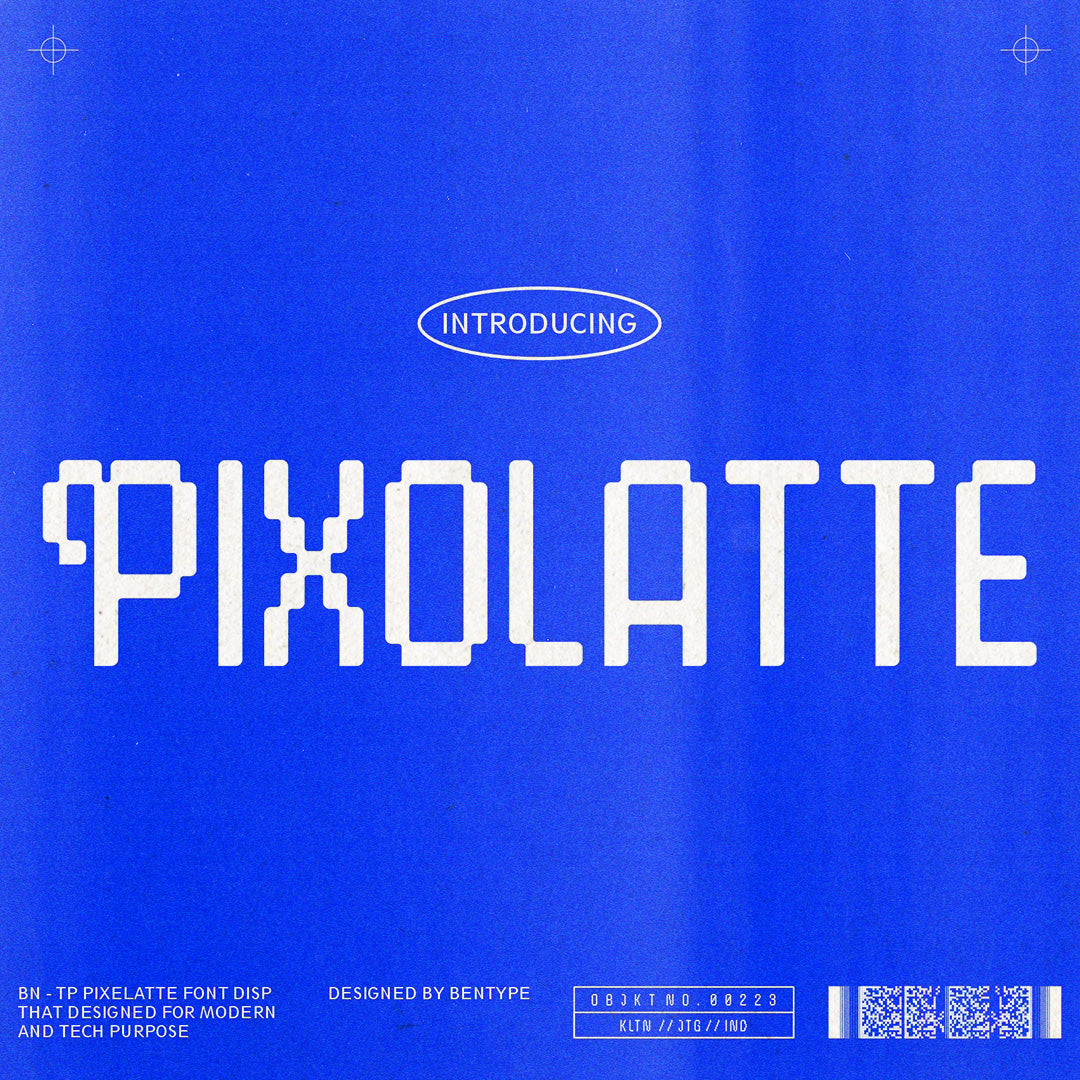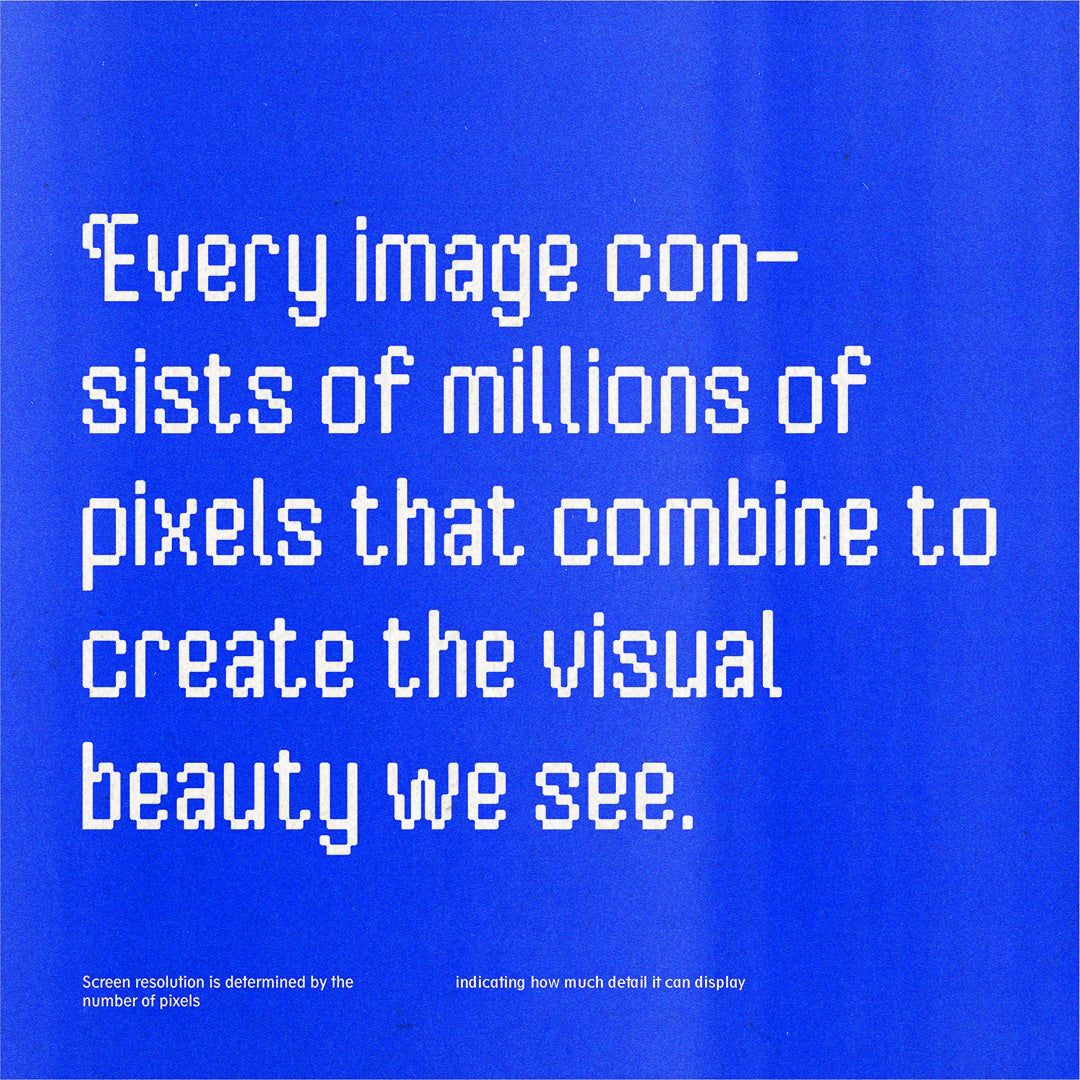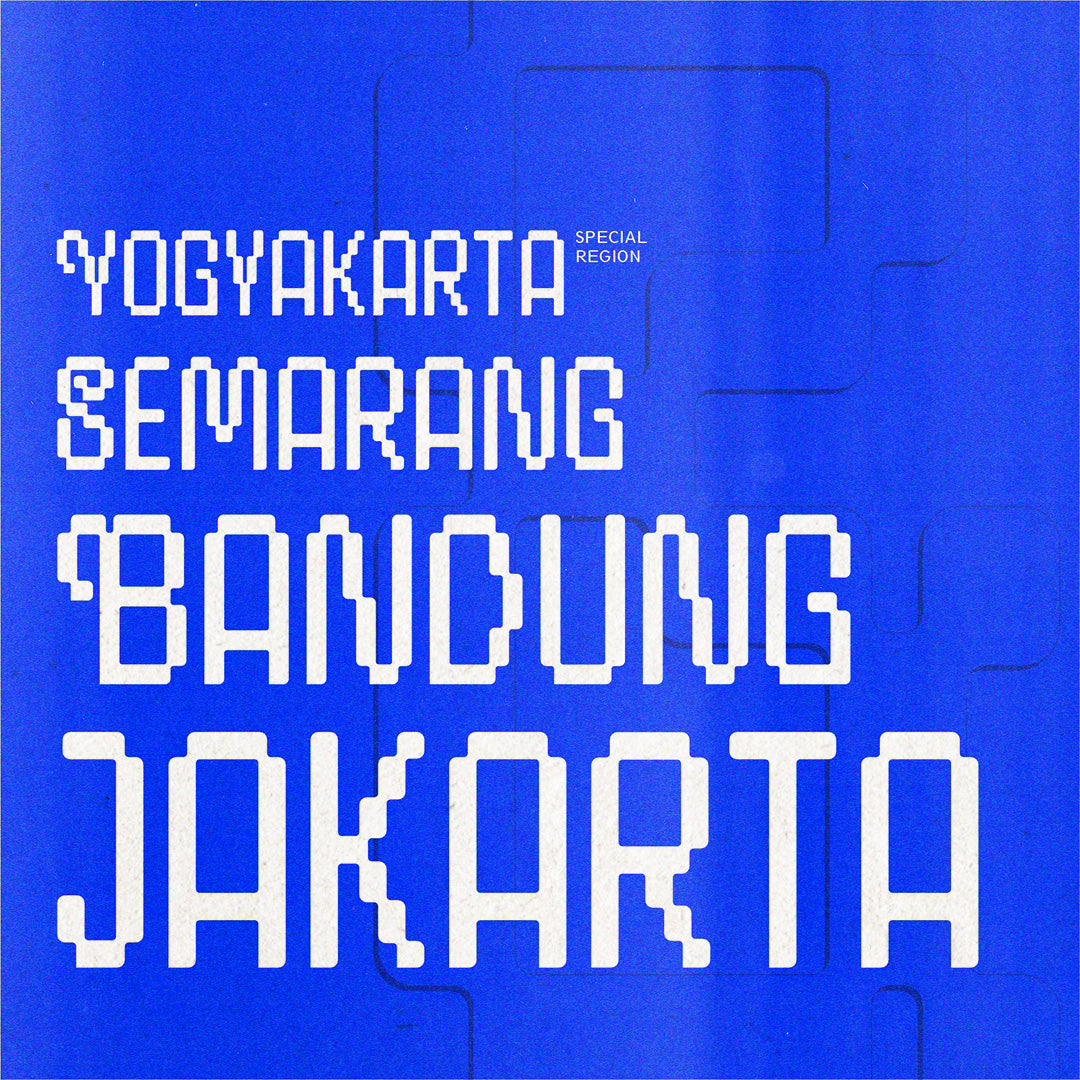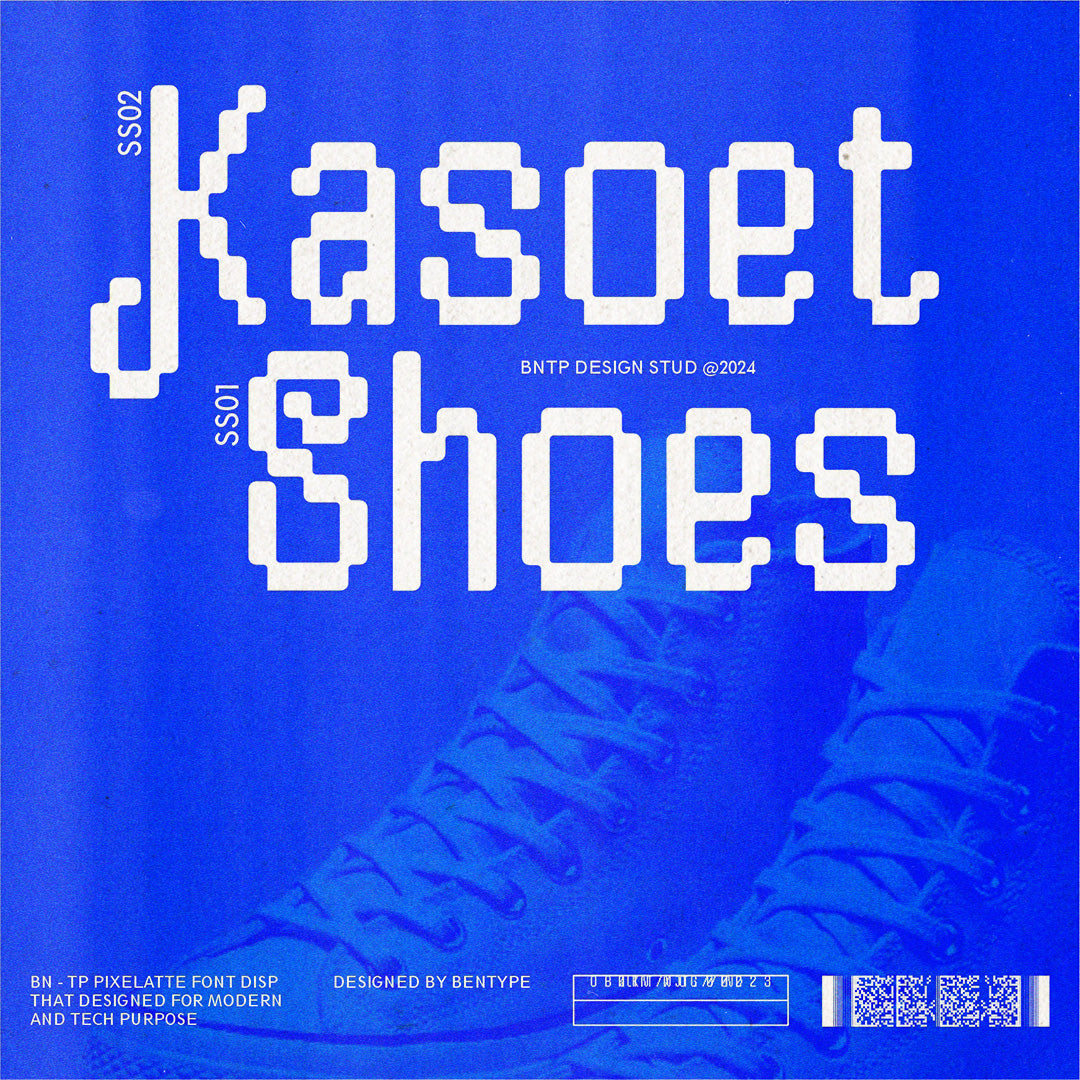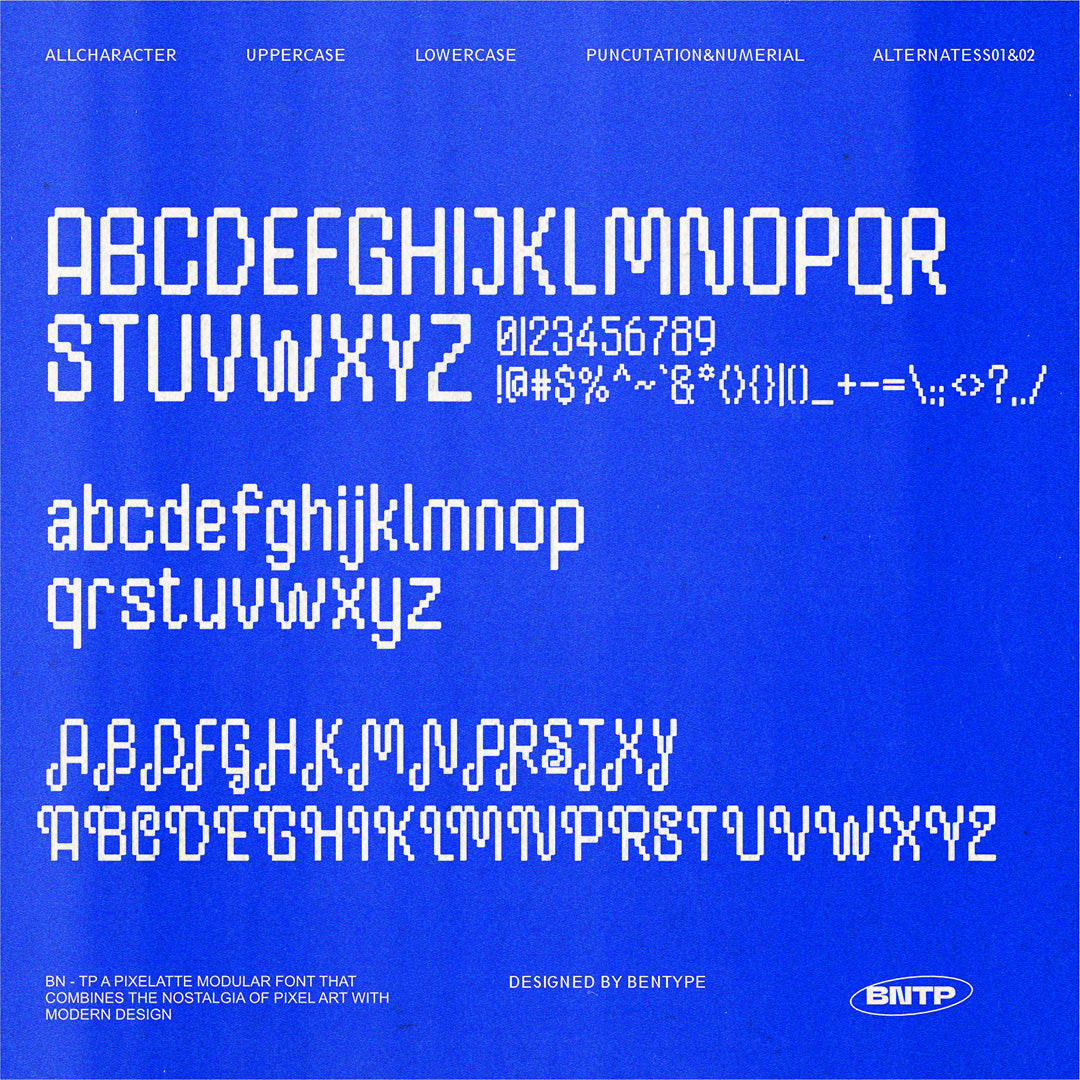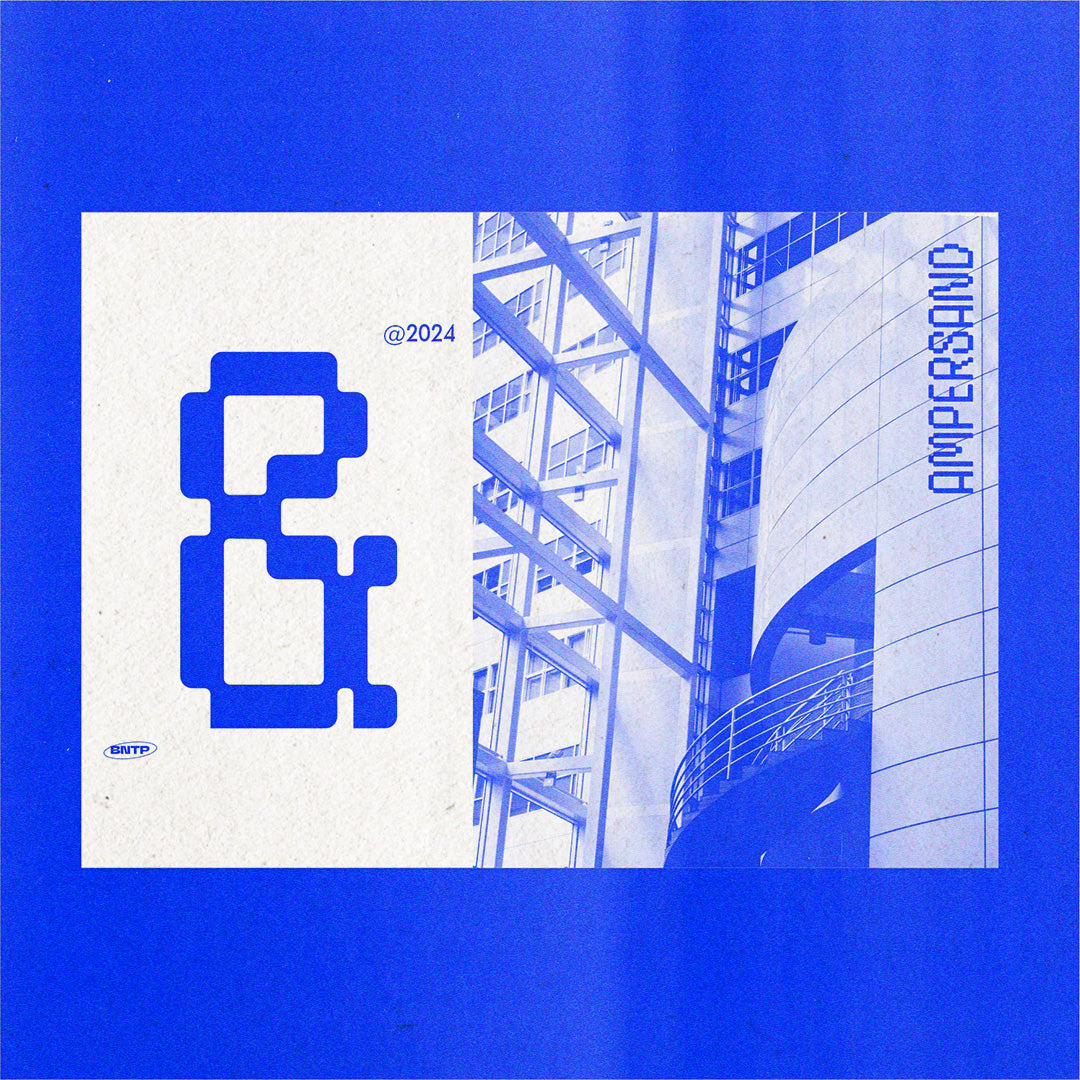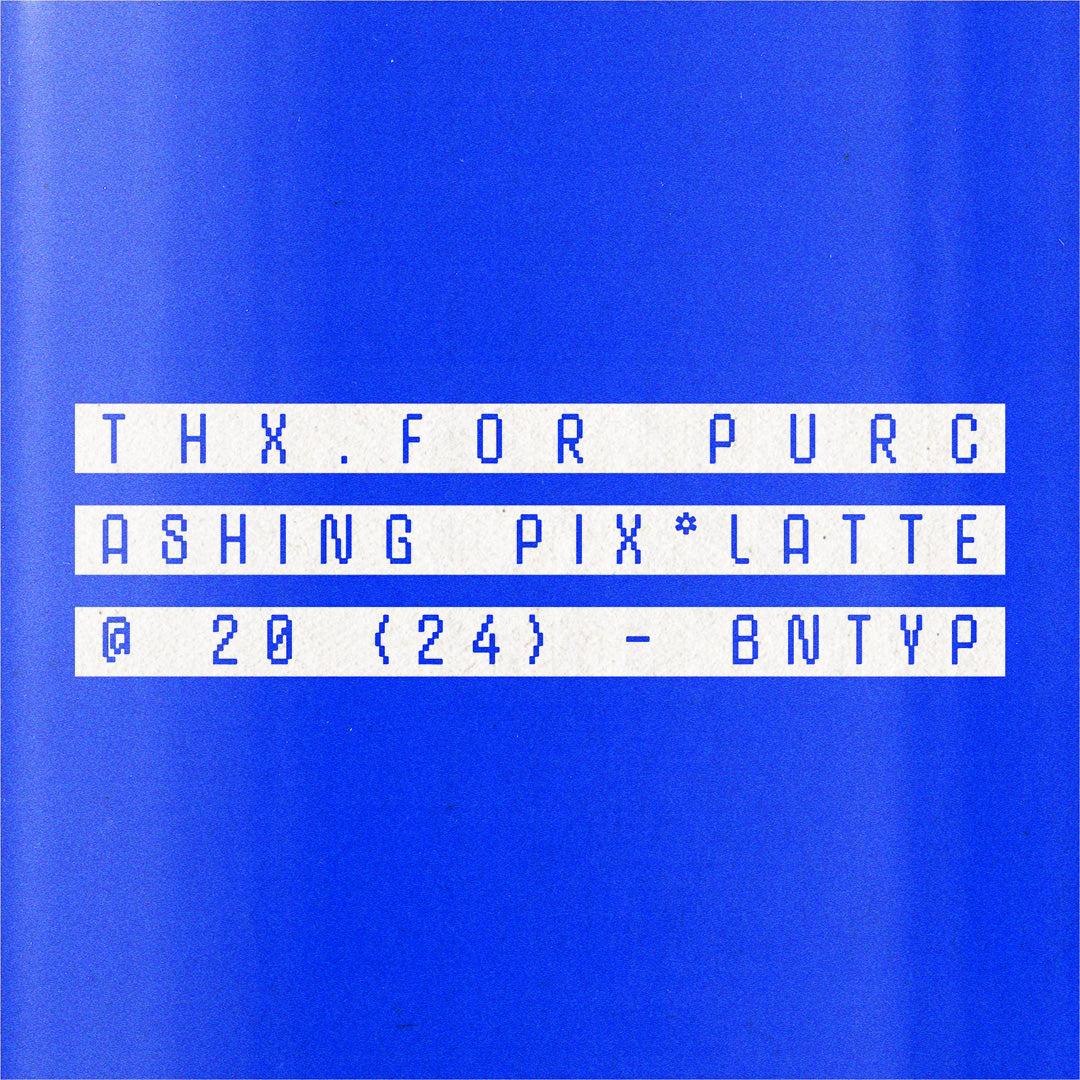
Pixolatte - Pixel Font Display
Bentype Studio
Pixolatte - pixel font display is a unique and specialized typeface option, particularly suited for digital projects where a retro aesthetic or low-resolution display is desired. Despite their limitations in character set and resolution, pixel fonts remain popular among designers for their distinct visual appeal and nostalgic charm.